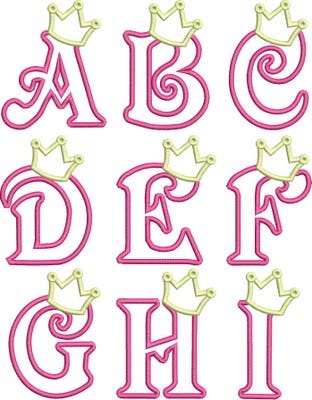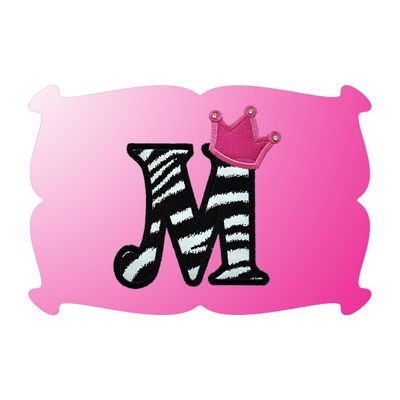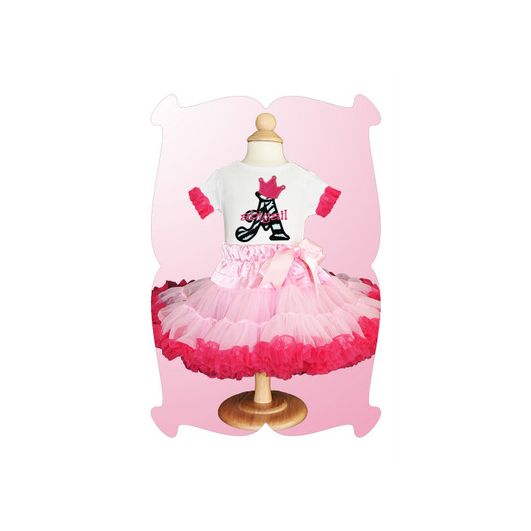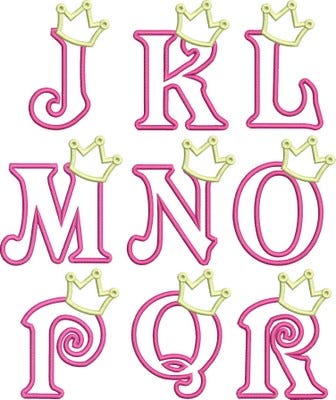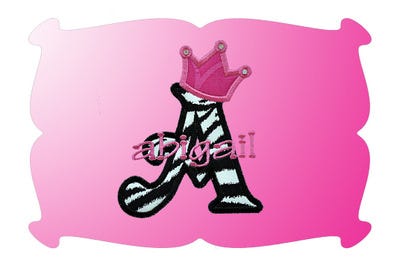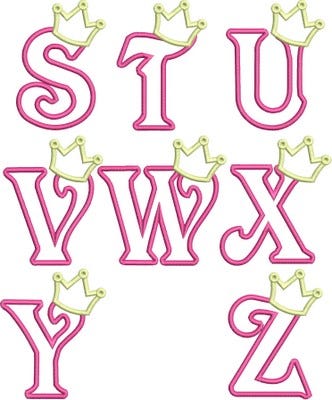
Princess Crown Satin Stitch Applique Monogram Embroidery Font
Princess Crown Applique Font
Now you can be a princess every day of the week with our Princess Crown Appplique Font!
I made Abigal a "petti-fluff" shirt to match her pettiskirt.
She loves it!
A lower case stacked monogram font was used for Abigail's name.
I just finished one of the letters in your crown alphabet and it is the best applique I have ever done. Flawless sewout....